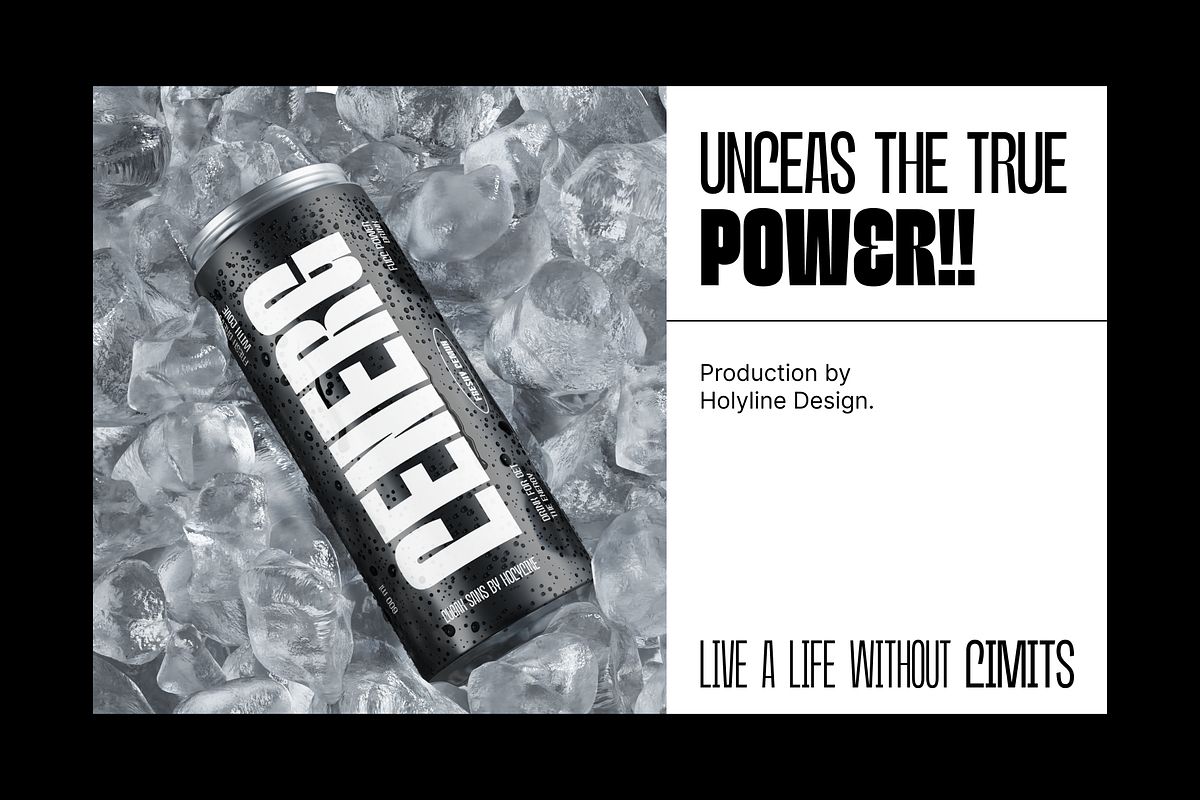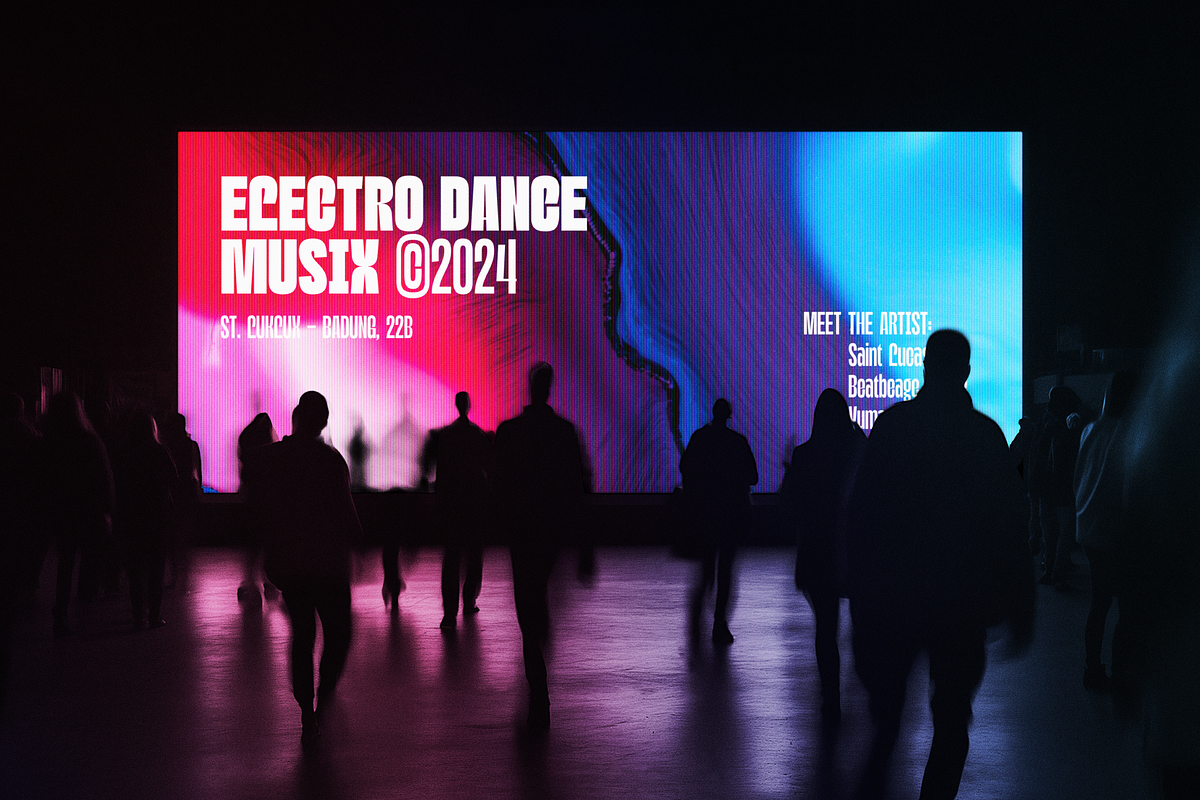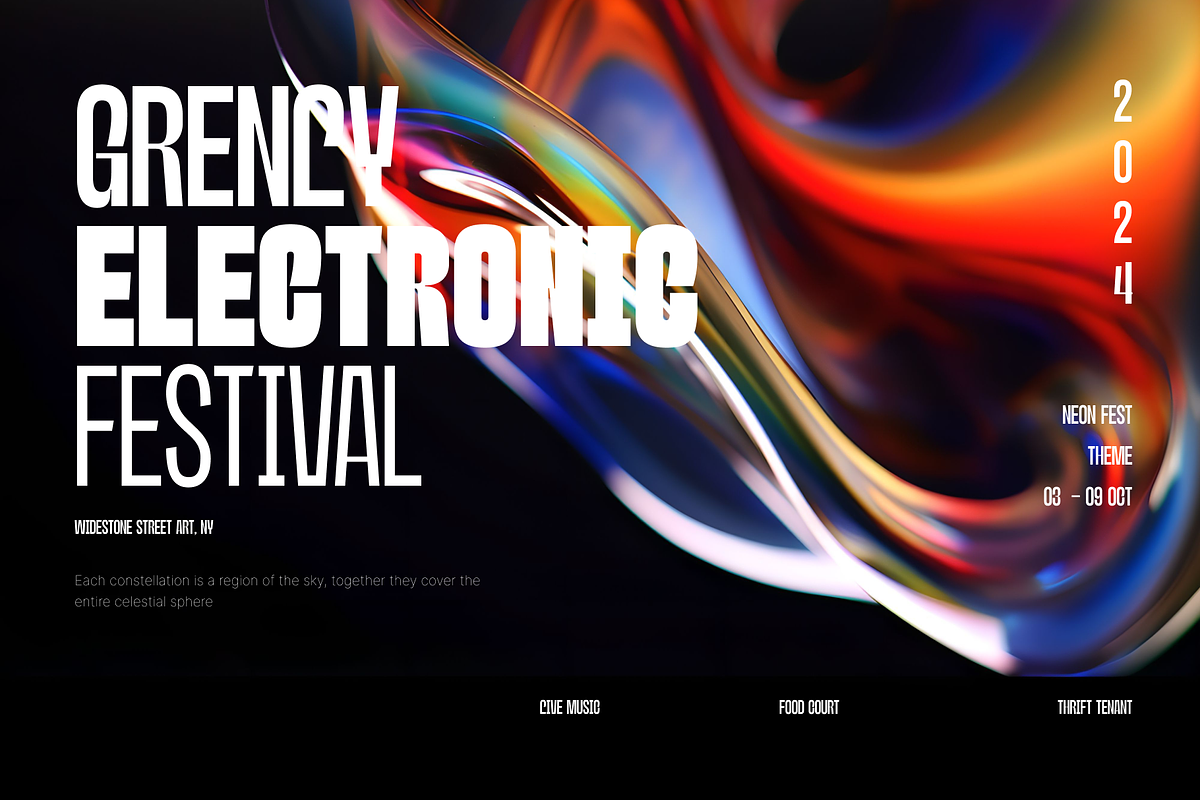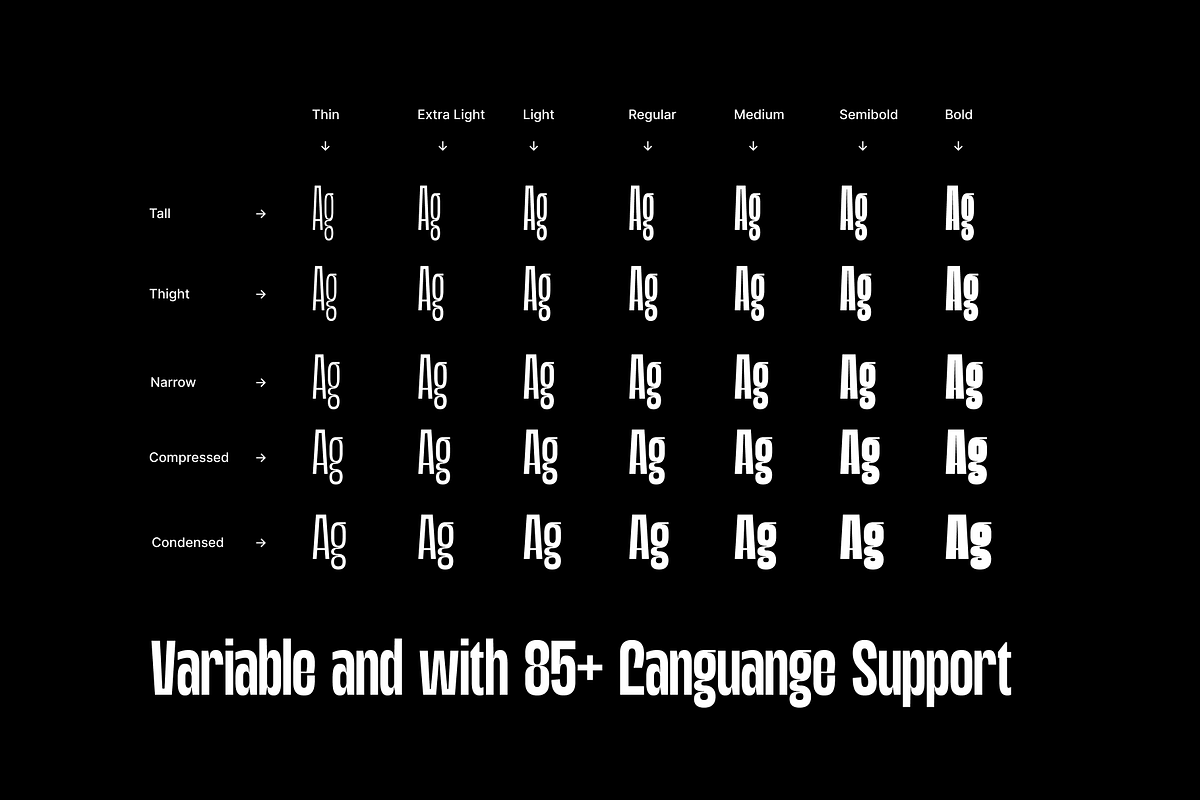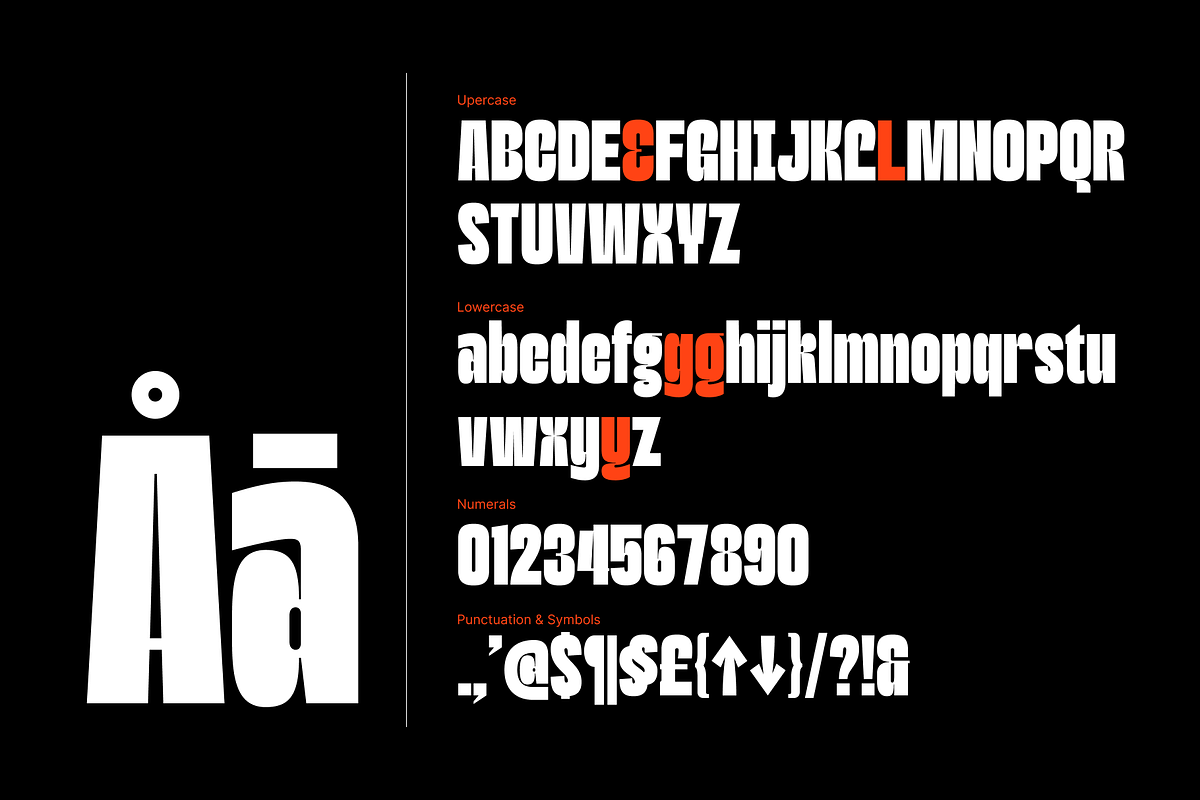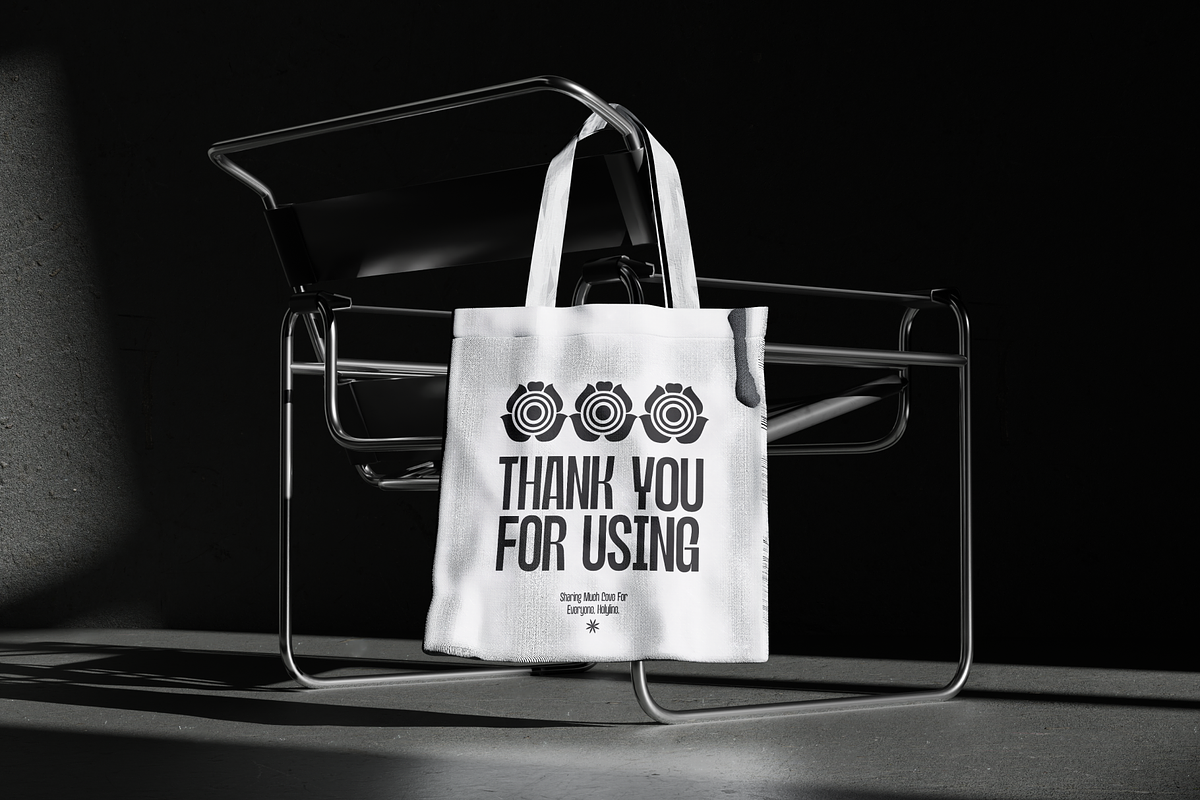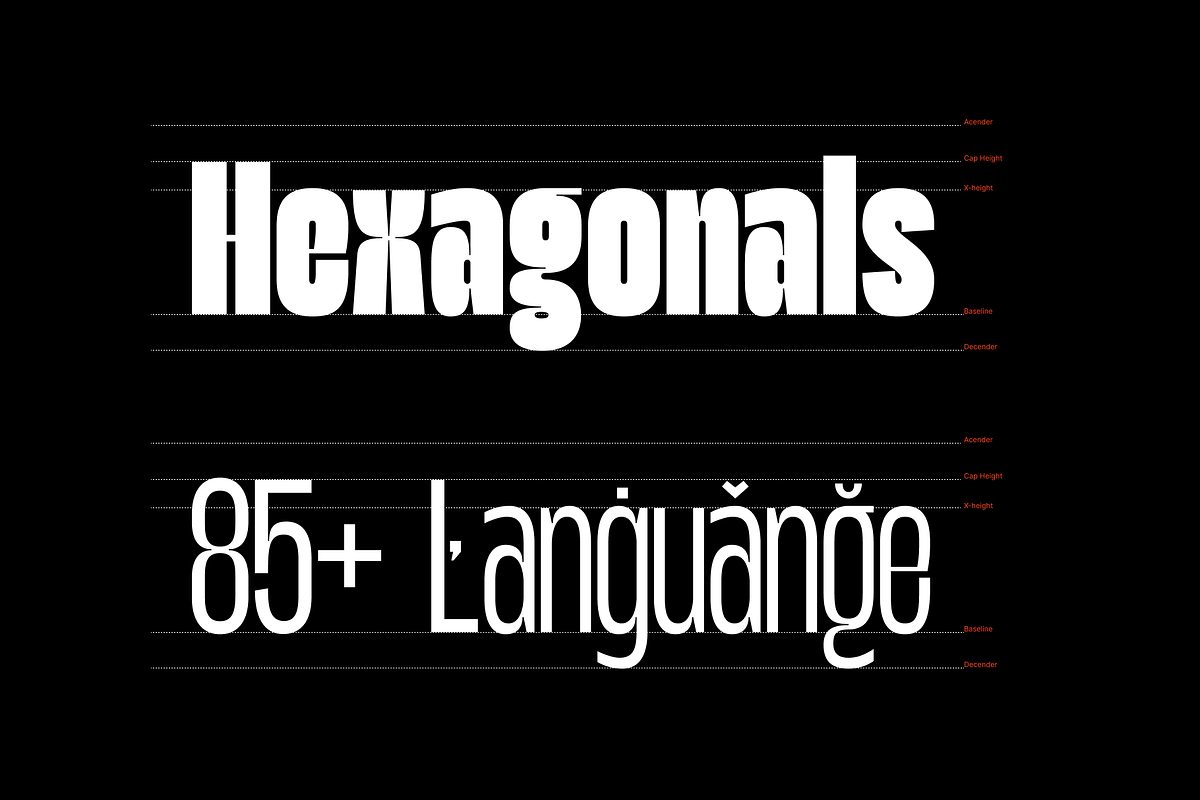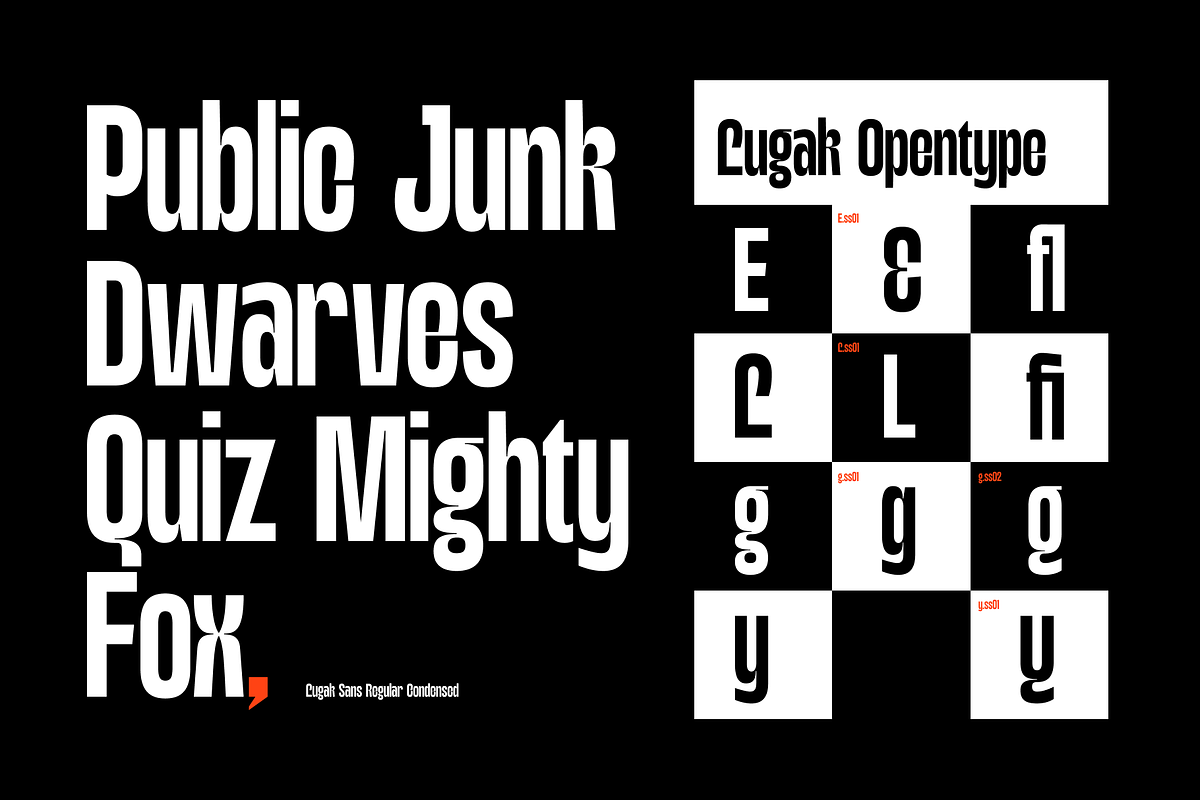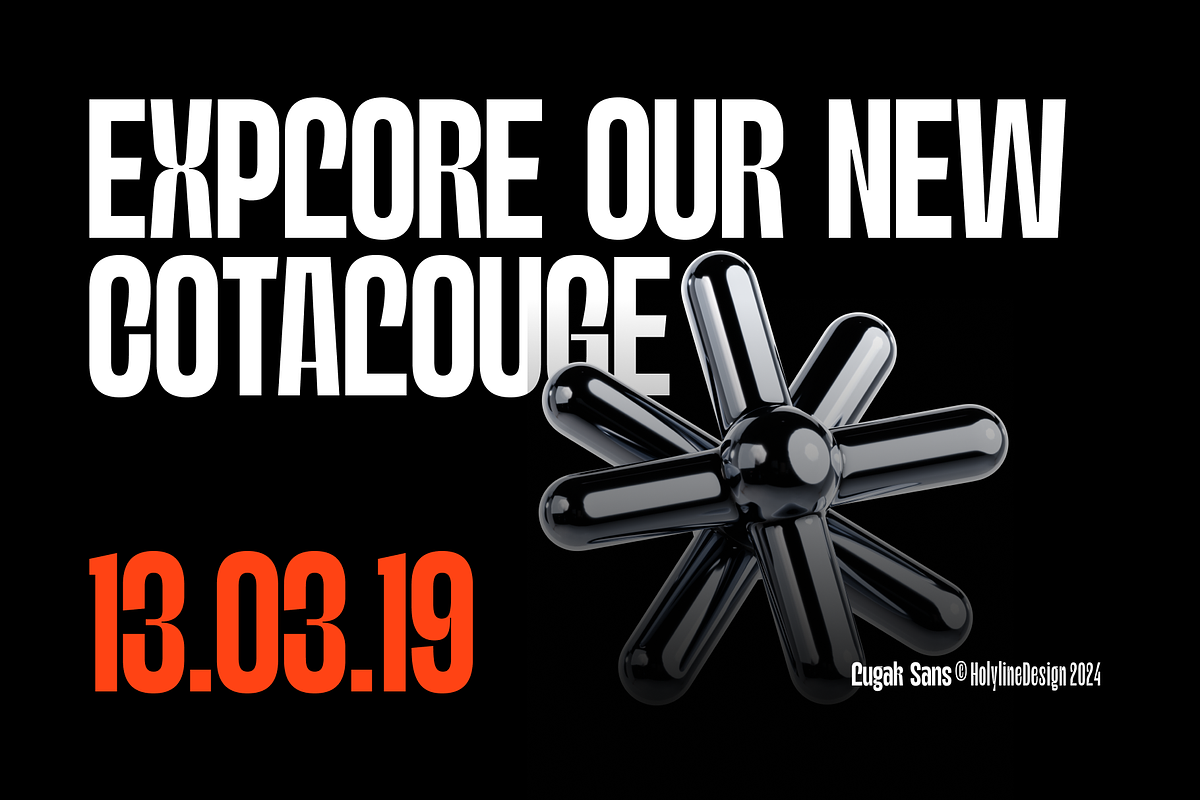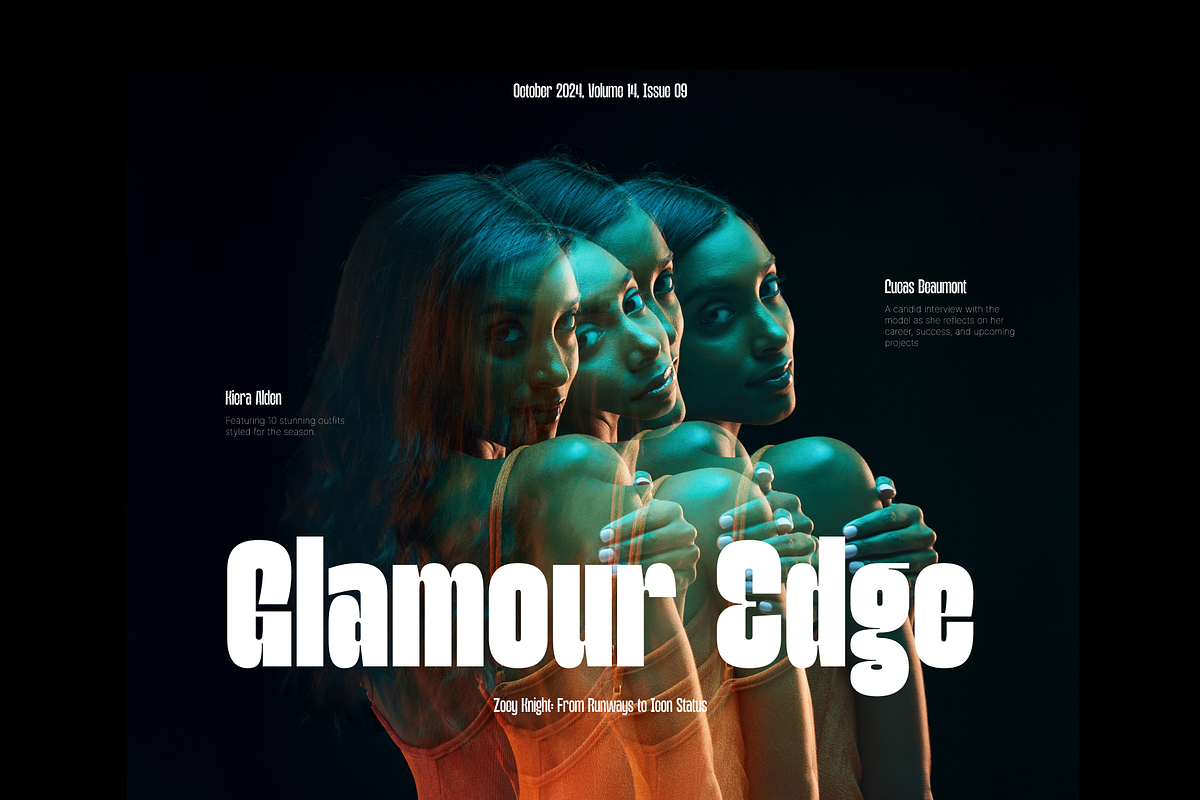
Lugak Sans Display Family
Lugak Sans is a modern sans serif font that blends the clean, functional aesthetic of Neue Grotesk with the raw, expressive energy of street art. Designed for versatility and impact, this font offers a condensed style that captures both the structure of urban landscapes and the creativity found in street culture. With 7 weights and 5 widths ranging from tall to condensed, Lugak Sans provides a wide range of flexibility for any design project. Its bold yet refined characters make it ideal for everything from sleek branding and editorial work to bold posters and edgy urban designs. Perfect for designers who need a font that’s both strong and stylish, Lugak Sans brings the influence of modern typography and the vibrancy of street art into a cohesive, dynamic typeface.